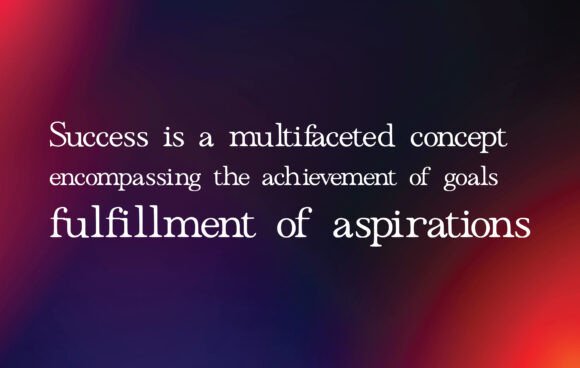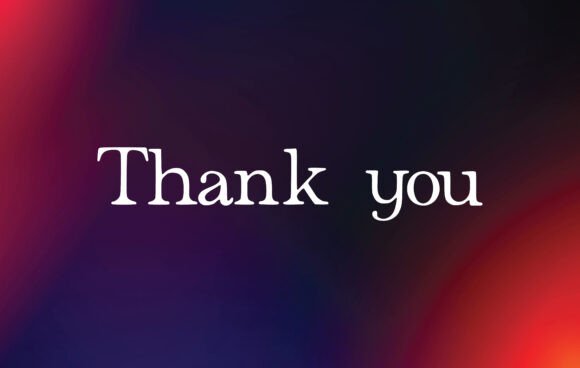
Discover the Versatility of Adam Font: Elevate Your Designs to New Heights
In the world of typography, a font can make all the difference in the success of a design project. With the right font, your creative ideas can soar to new heights, and your designs can leave a lasting impression on your audience. This is where Adam Font comes in – a versatile and highly legible font designed to be a true favorite among designers and crafters. In this article, we’ll explore the features and benefits of Adam Font, and how it can elevate your designs to the next level.
A Font Designed for Creativity
Adam Font is crafted with creativity in mind. Its unique design makes it perfect for a wide range of applications, from magazine headlines to t-shirts, social media graphics, branding, wedding invitations, cards, and more. Whether you’re a professional designer or a DIY enthusiast, Adam Font is an excellent choice for anyone looking to add a touch of sophistication and elegance to their designs.
Legibility and Versatility
One of the standout features of Adam Font is its exceptional legibility. Whether used as a title or body text, this font looks great and is easy to read. This makes it perfect for designs where clarity is essential, such as in magazines, newspapers, and online publications. Additionally, Adam Font’s versatility allows it to be used in various contexts, from formal and professional to casual and playful.
Adam Font’s flexibility makes it an excellent choice for many different design projects. Here are some ideas to get you started:
- Magazine Headlines: Use Adam Font to create eye-catching headlines that grab attention and draw readers in.
- T-Shirts and Apparel: Add a touch of style and sophistication to your t-shirt designs with Adam Font.
- Social Media Graphics: Create engaging social media graphics that stand out from the crowd with Adam Font.
- Branding: Establish a strong brand identity with Adam Font, perfect for logos, business cards, and letterheads.
- Wedding Invitations: Add a touch of elegance to your wedding invitations and stationery with Adam Font.
- Cards and Greeting Cards: Create beautiful and heartfelt cards for any occasion with Adam Font.
Why Choose Adam Font?
With so many fonts available, why choose Adam Font? Here are just a few reasons:
- Unique Design: Adam Font has a unique design that sets it apart from other fonts.
- Exceptional Legibility: Adam Font is highly legible, making it perfect for designs where clarity is essential.
- Versatility: Adam Font can be used in a wide range of design projects, from formal to casual.
In conclusion, Adam Font is an exceptional font that has the potential to elevate your designs to new heights. Its unique design, exceptional legibility, and versatility make it perfect for a wide range of design projects. Whether you’re a professional designer or a DIY enthusiast, Adam Font is an excellent choice for anyone looking to add a touch of sophistication and elegance to their designs. So why wait? Download Adam Font today and discover the difference it can make in your designs.